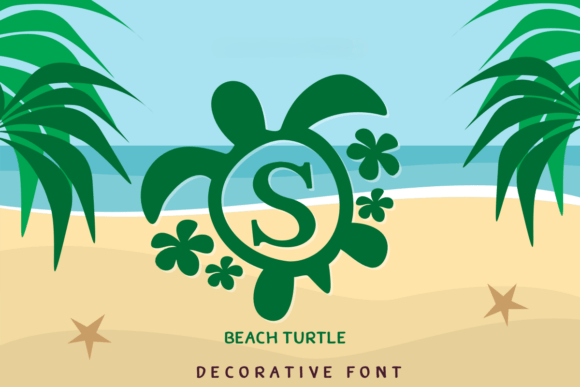
Introducing Beach Turtle Font: The Ultimate Tropical Decorative Font
Are you looking for a font that captures the essence of the beach and the tropical vibe? Look no further than the Beach Turtle Font. This stunning font is designed to bring a touch of the ocean to your designs, with each monogram-style letter enclosed within a stylized sea turtle design. In this article, we’ll dive into the features and benefits of the Beach Turtle Font, and explore how it can be used to create amazing beachwear branding, travel souvenirs, island-themed designs, and marine conservation graphics.
What is Beach Turtle Font?
Beach Turtle Font is a tropical decorative font that features monogram-style letters enclosed within stylized sea turtle designs. The font is perfect for creating eye-catching designs that evoke the feeling of a tropical paradise. Each letter is carefully crafted to resemble a sea turtle, making it a unique and memorable addition to any design.
Key Features of Beach Turtle Font
- Monogram-style letters: Each letter is designed in a monogram style, making it perfect for creating personalized and customized designs.
- Stylized sea turtle design: The sea turtle design is carefully crafted to add a touch of whimsy and playfulness to your designs.
- Tropical vibe: The font is designed to evoke the feeling of a tropical paradise, making it perfect for beachwear branding, travel souvenirs, and island-themed designs.
- Versatile: The font can be used for a variety of design projects, from logos and branding to posters and social media graphics.
Uses for Beach Turtle Font
The Beach Turtle Font is perfect for a variety of design projects, including:
- Beachwear branding: Create eye-catching logos and branding for your beachwear company that captures the essence of the ocean.
- Travel souvenirs: Design unique and memorable travel souvenirs, such as t-shirts, mugs, and postcards, that feature the Beach Turtle Font.
- Island-themed designs: Create stunning island-themed designs, such as posters, flyers, and social media graphics, that feature the Beach Turtle Font.
- Marine conservation graphics: Use the Beach Turtle Font to create graphics for marine conservation campaigns and projects.
Benefits of Using Beach Turtle Font
There are many benefits to using the Beach Turtle Font in your designs, including:
- Unique and memorable: The Beach Turtle Font is a unique and memorable addition to any design, making it perfect for creating eye-catching logos and branding.
- Tropical vibe: The font is designed to evoke the feeling of a tropical paradise, making it perfect for creating designs that capture the essence of the ocean.
- Versatile: The font can be used for a variety of design projects, from logos and branding to posters and social media graphics.
Tips and Tricks for Using Beach Turtle Font
Here are some tips and tricks for using the Beach Turtle Font:
- Use it sparingly: Use the Beach Turtle Font sparingly to create emphasis and add visual interest to your designs.
- Pair it with other fonts: Pair the Beach Turtle Font with other fonts to create a unique and memorable design.
- Experiment with colors: Experiment with different colors and textures to add depth and interest to your designs.
- Use it consistently: Use the Beach Turtle Font consistently across all of your designs to create a cohesive brand identity.
The Beach Turtle Font is a unique and memorable addition to any design project. With its tropical vibe, monogram-style letters, and stylized sea turtle design, it’s perfect for creating eye-catching logos and branding, travel souvenirs, island-themed designs, and marine conservation graphics. By following the tips and tricks outlined in this article, you can use the Beach Turtle Font to create stunning designs that capture the essence of the ocean.